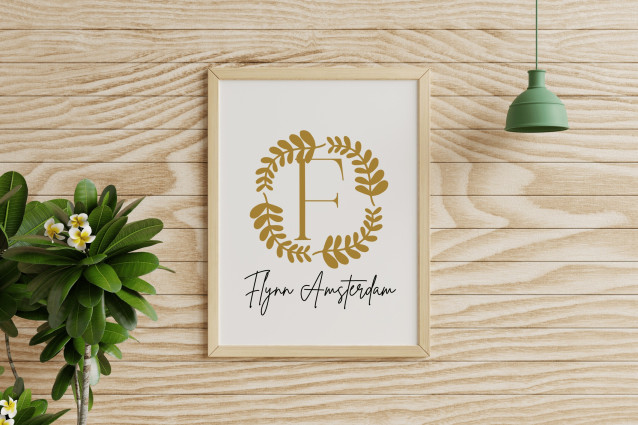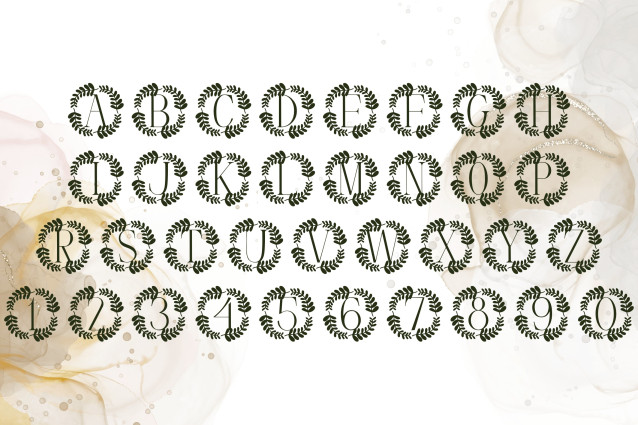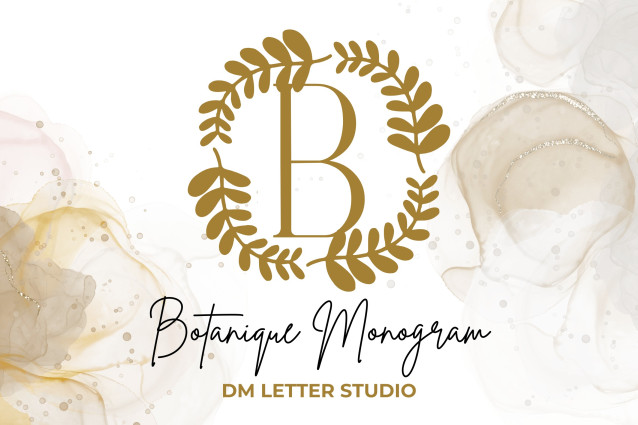
Botanite Font
Botanite Monogram is a refined serif monogram font featuring uppercase initials adorned with natural botanical embellishments. Designed to capture the grace of organic growth and timeless elegance, it’s perfect for wedding designs, Cricut crafts, nature branding, and personalized stationery that needs a subtle touch of greenery.